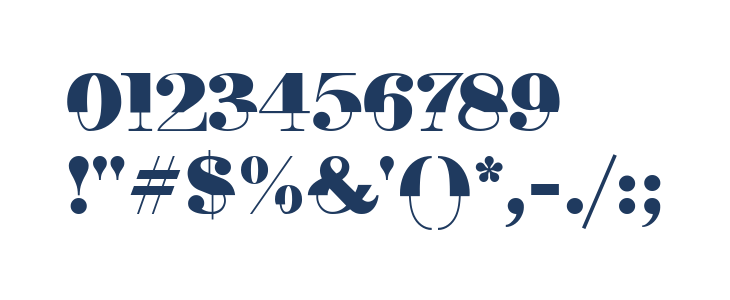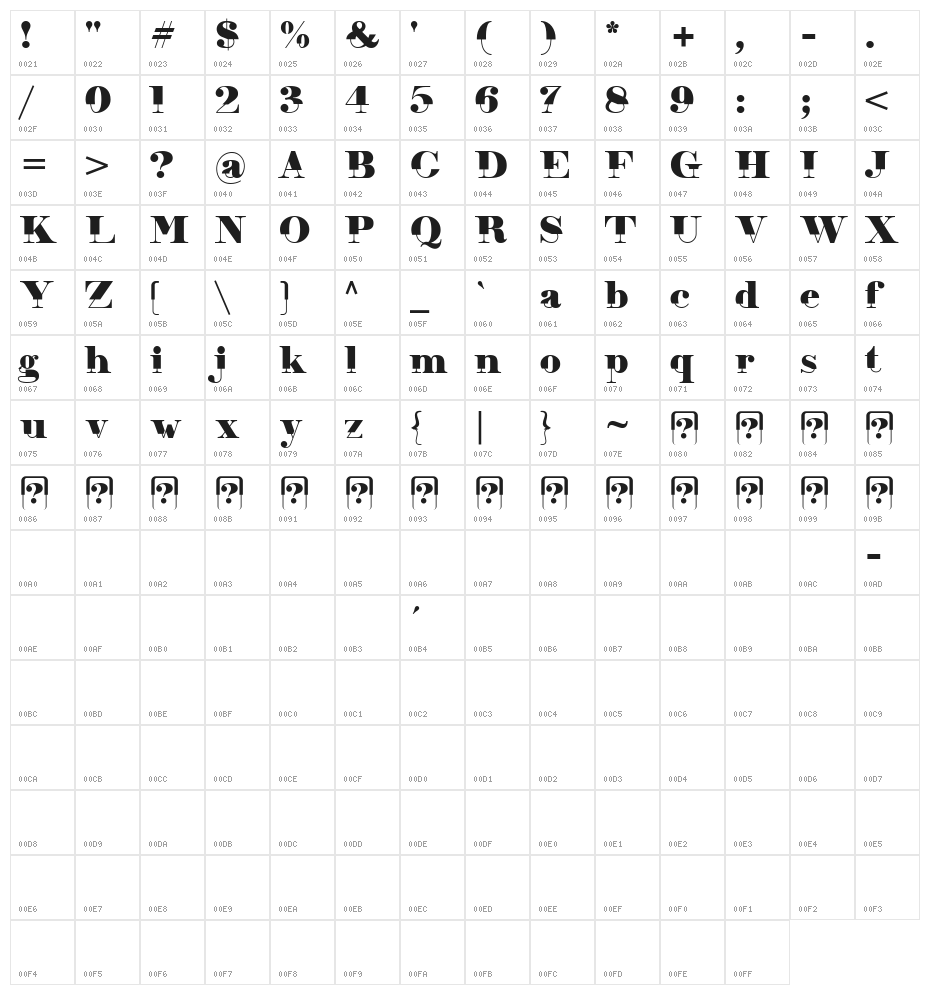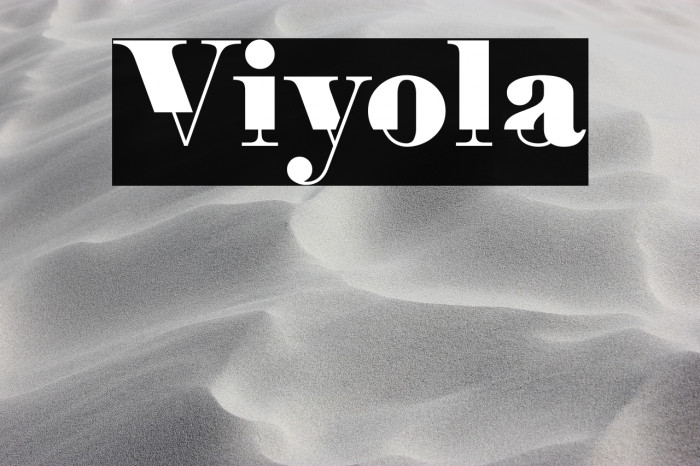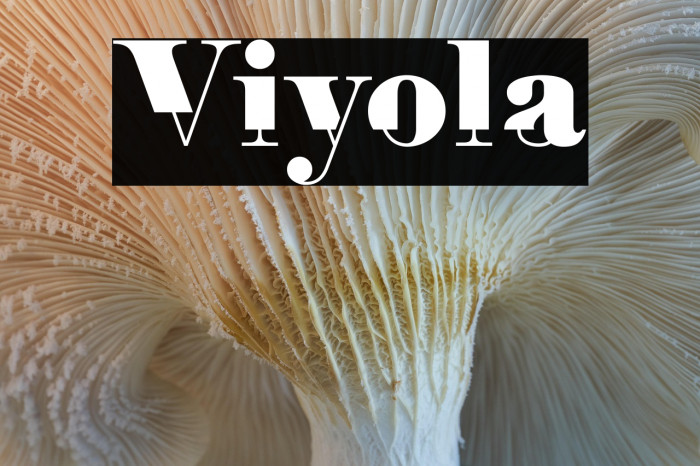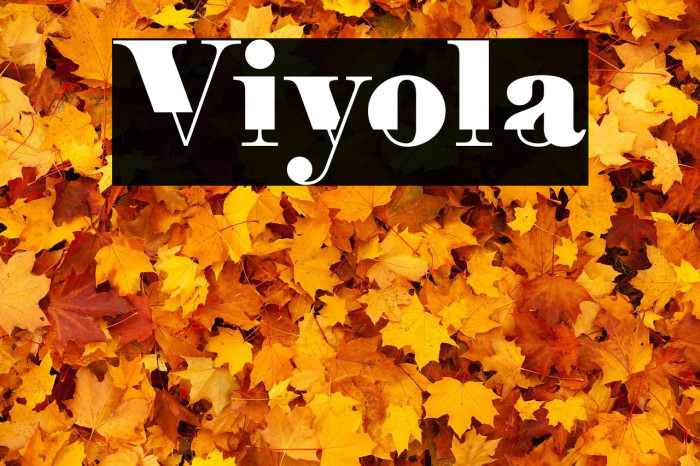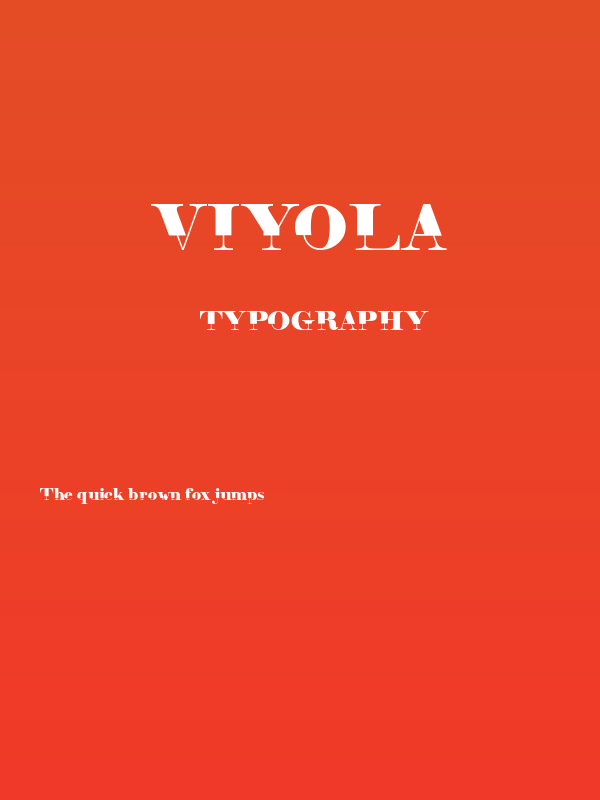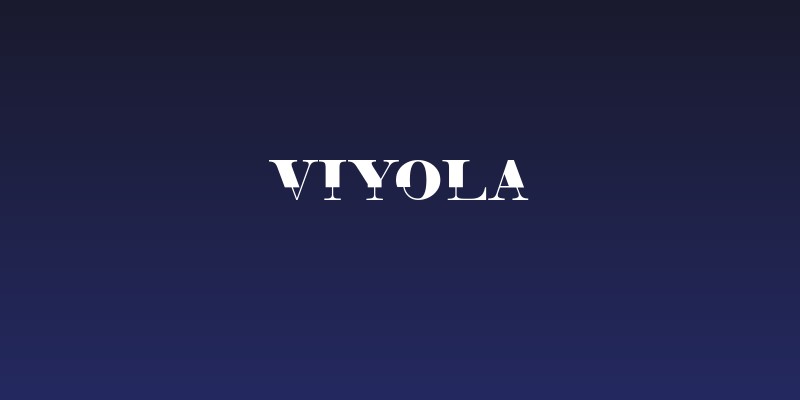
Viyola Font
Viyola Description
This font exhibits a bold and dramatic style with high contrast between thick and thin strokes, giving it a strong and impactful presence. The serifs are pronounced and sharp, adding a touch of elegance and sophistication. The uppercase letters are particularly striking, with a sense of grandeur and authority. The lowercase letters maintain the boldness while offering a slightly softer appearance. Numbers and special characters are consistent with the overall bold and high-contrast theme, ensuring readability and visual interest. This font is ideal for making a statement and capturing attention.
| Proposed Projects | Ideal for headlines, posters, branding, and editorial design where a strong visual impact is desired. |